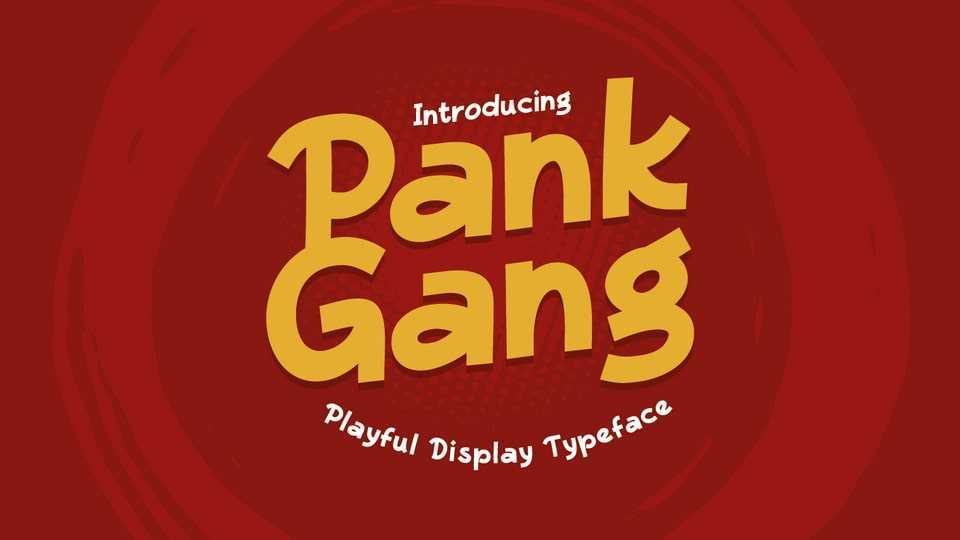
Download PankGang font, a bold, free-flowing typeface, perfect for expressing typography and graphic designs that aren’t bound by rules. PankGang brings you memories of a cheerful and happy childhood.
Designer: Southills Studio